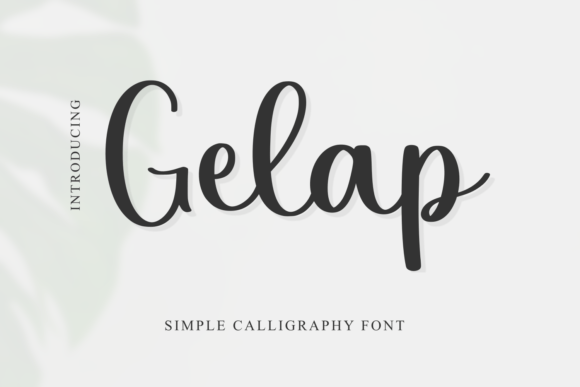
Unleash the elegance and captivation of your designs with Gelap Font, a stunning script font family crafted by the ingenious kammaqsum. Step into a world of creative possibilities as you explore the boundless beauty of Gelap, the perfect font for calling cards.
Indulge in the intricate strokes and graceful curves of Gelap, a font that dances across your designs like a delicate brushstroke. Its enchanting personality adds a touch of sophistication to logos, labels, branding, invitations, websites, quotes, and more. Prepare to be mesmerized as Gelap transforms your creations into true masterpieces, leaving an unforgettable impression on your audience.
With Gelap, you'll discover a font that captures the essence of artistry and craftsmanship. Its meticulously designed characters exude a timeless charm that transcends trends, ensuring that your designs remain captivating for years to come. Whether you're a seasoned designer or just starting your creative journey, Gelap will be your trusted companion, guiding you towards design excellence.
Unlock the full potential of your branding with Gelap, the ultimate font for calling cards. Create calling cards that command attention and leave a lasting impact on potential clients. Gelap's elegant script will transform your cards into miniature works of art, conveying professionalism and creativity in equal measure. Watch as your business flourishes with Gelap as your calling card companion.
Beyond calling cards, Gelap shines as a versatile font, ready to elevate any project. Its enchanting style breathes life into logos, adding a touch of sophistication that sets your brand apart. Design labels that exude elegance, invitations that captivate, and websites that radiate creativity. With Gelap, your designs will transcend the ordinary and enter the realm of the extraordinary.
Immerse yourself in the world of Gelap Font, where beauty and functionality intertwine. Experience the joy of creating designs that resonate with your audience, leaving them captivated and inspired. Let Gelap be your creative muse, guiding you towards design greatness. Embrace the limitless possibilities and transform your designs into works of art.